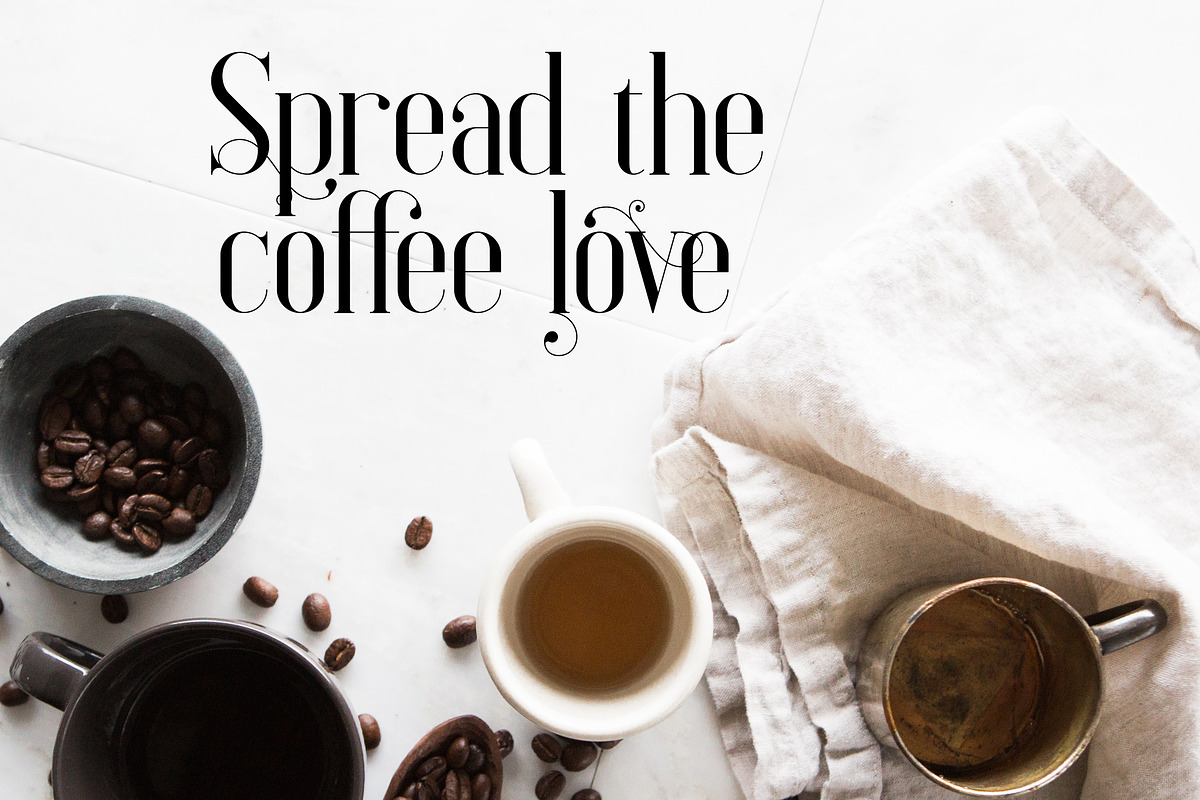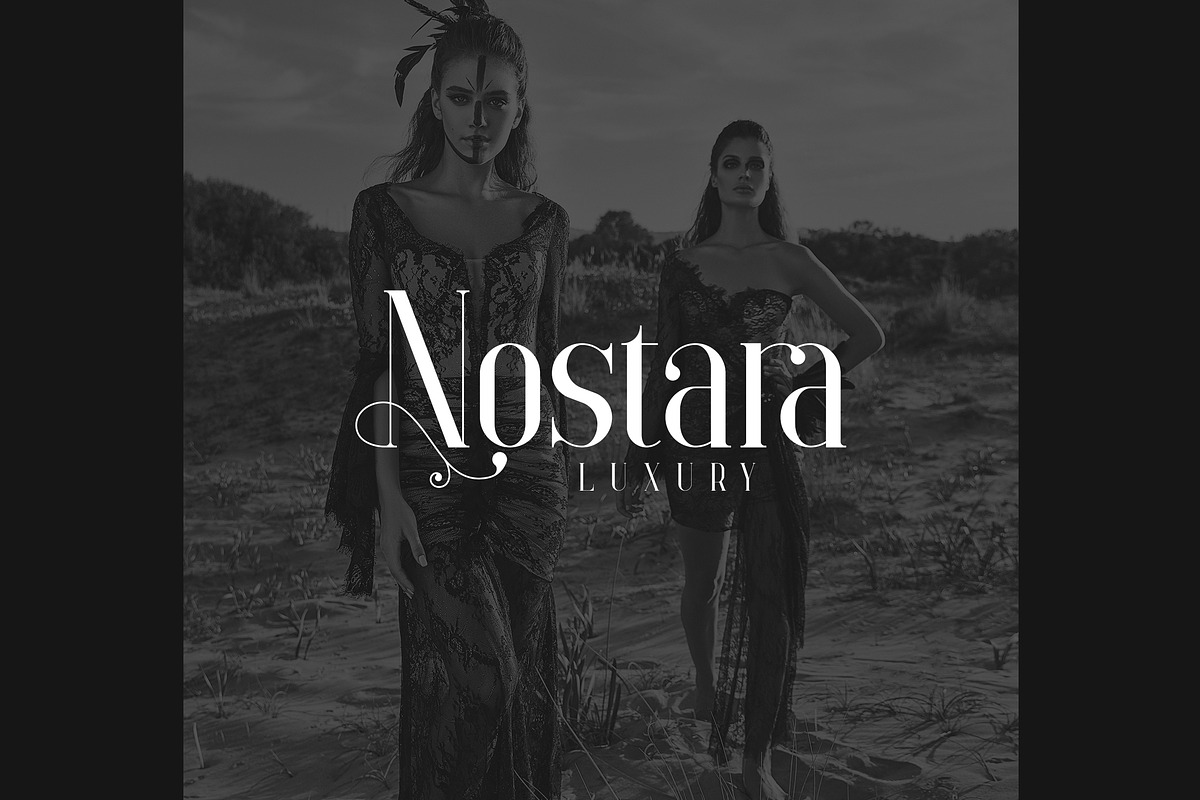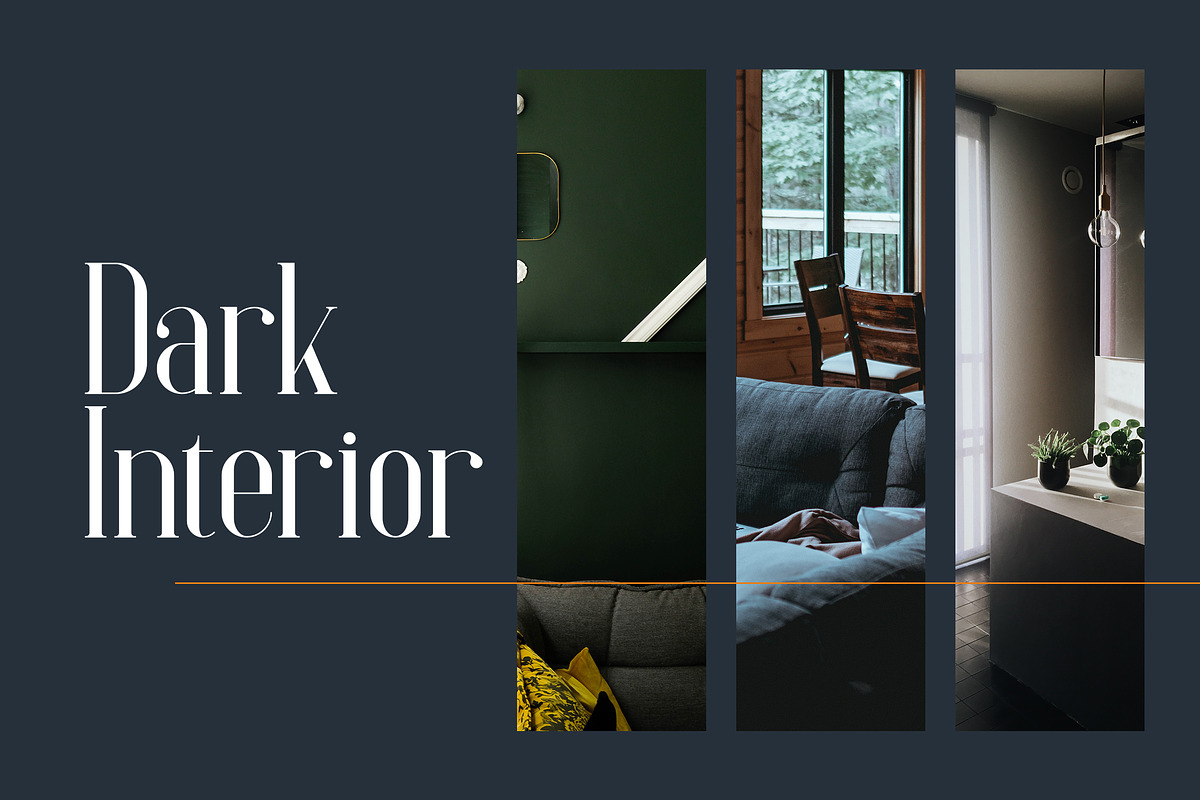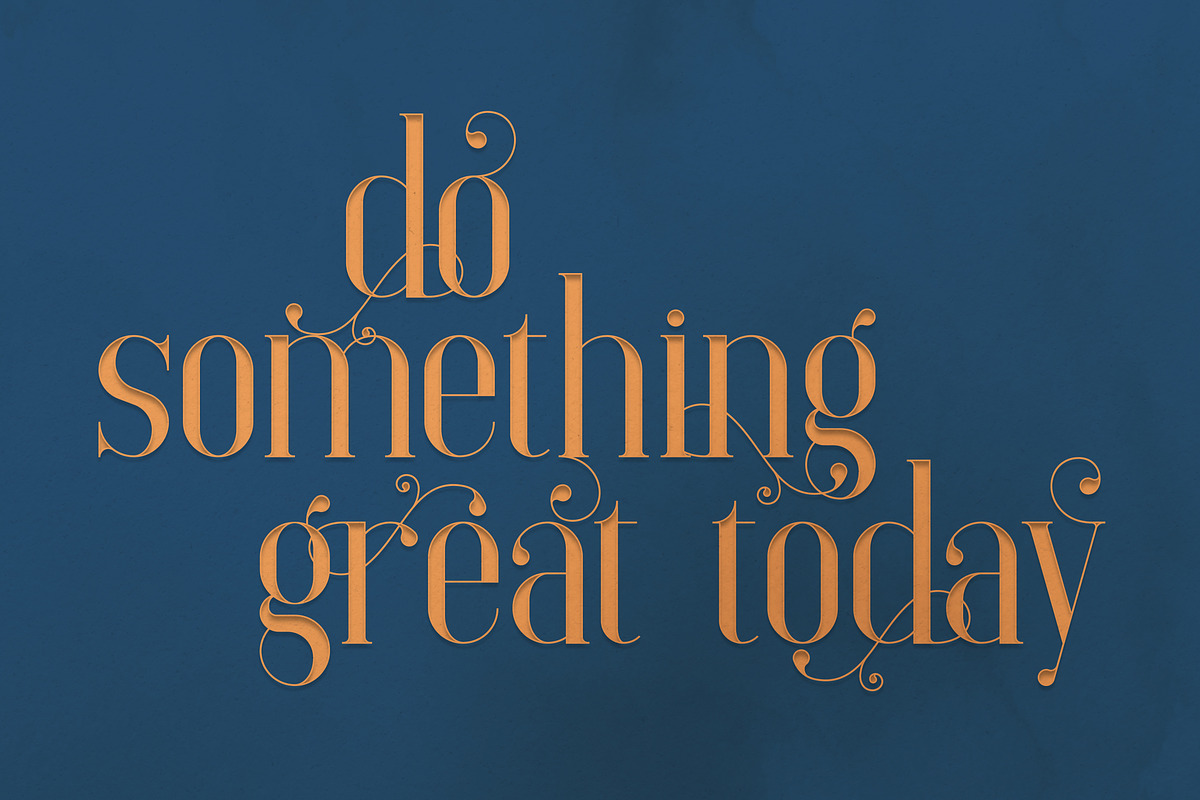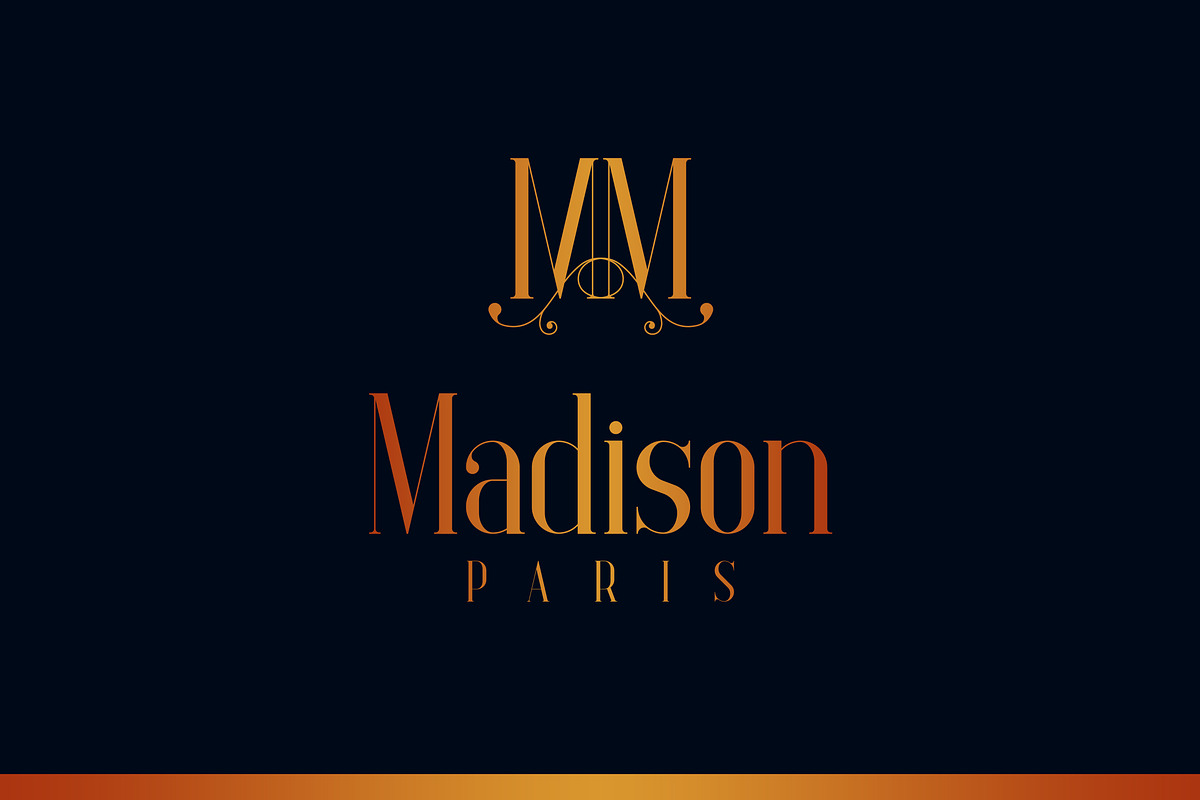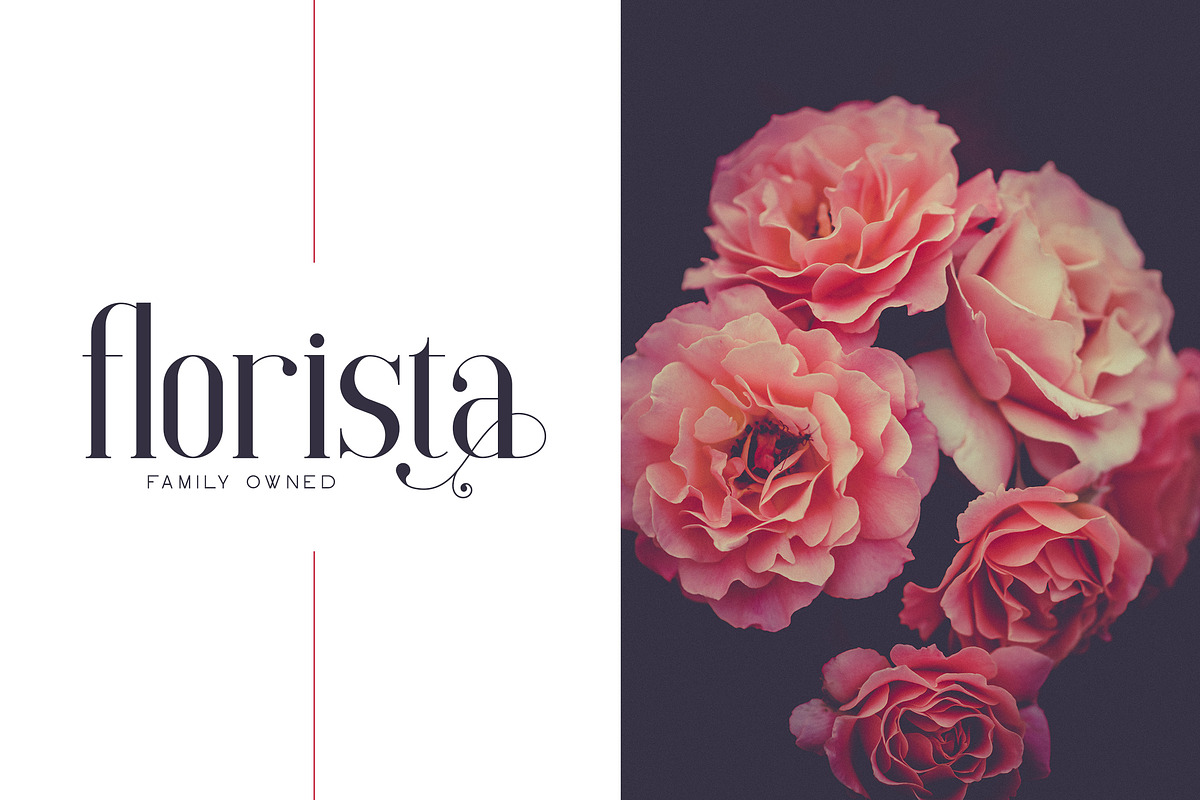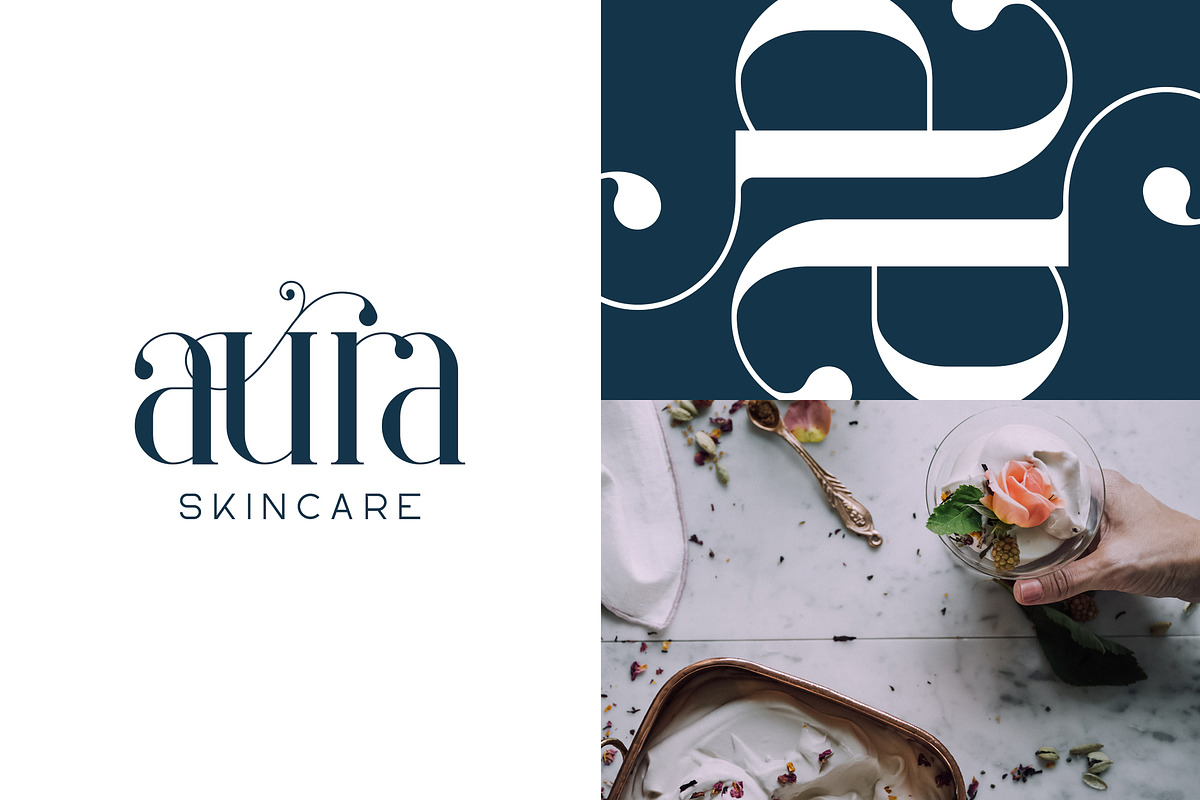
Elysian - serif font
Introducing Elysian - serif font
Elysian is vintage, elegant font with tons of alternate glyphs, ligatures and multilingual support. It's a very versatile font that works great in large and small sizes.
Elysian is perfect for branding projects, home-ware designs, product packaging, magazine headers - or simply as a stylish text overlay to any background image.